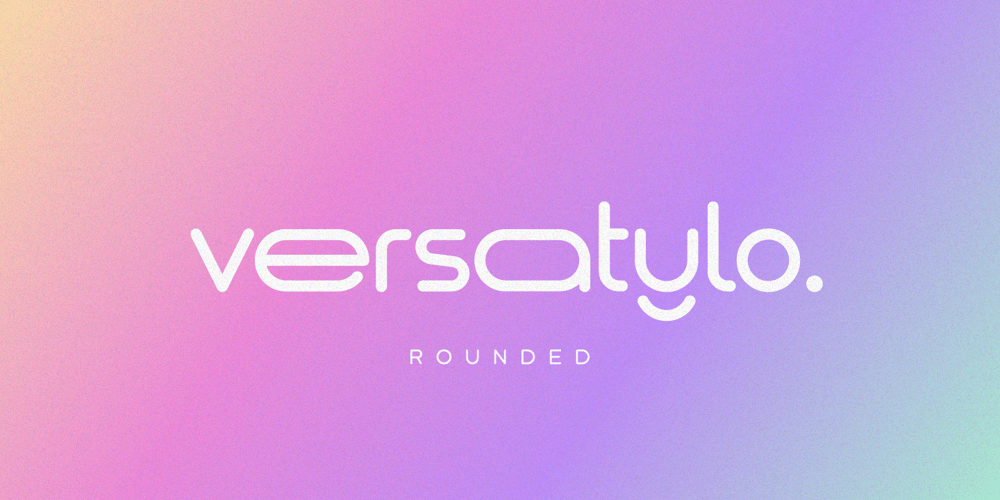
Versatylo Rounded
Versatylo Rounded font
Versatylo Rounded Font Family was designed by Mukhlis Muhammad and published by Variatype. Versatylo Rounded contains 2 styles and family package options. Versatylo is a very strong and outstanding branding font that is usable in any company that wants to make its image look modern and high technology. So, let’s make your own logotype with this font.FONT FEATURES Additional Accents 66 Languages Kerning Alternates Ligatures